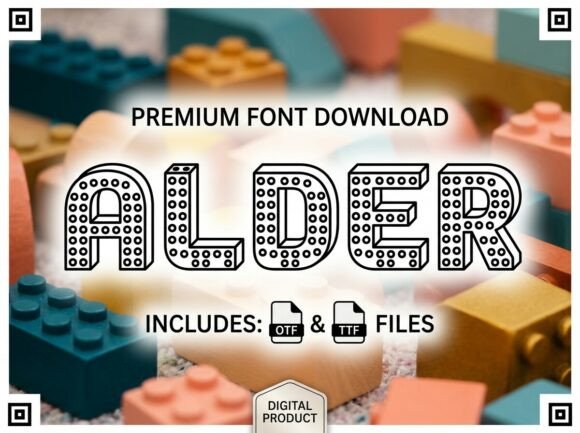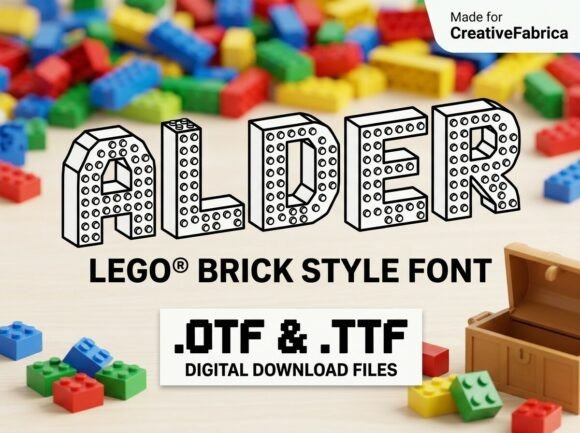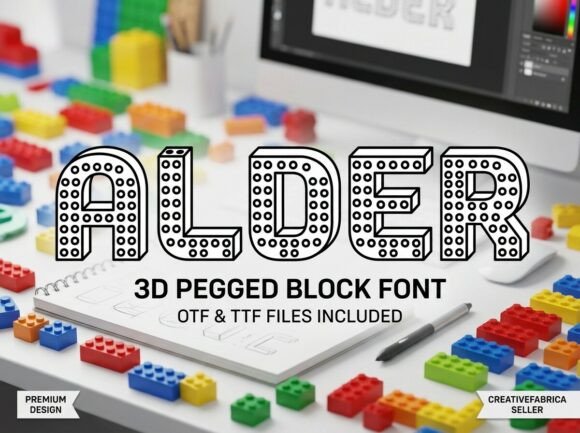
Introducing Alder Font: The Ultimate Display Typeface for Glamorous Designs
Are you looking for a font that can add a touch of glamour and grandeur to your designs? Look no further than Alder, a show-stopping display typeface that is sure to light up your creative projects. With its massive, 3D block letterforms and unique rhythmic, hand-drawn “marquee light” texture, Alder is the perfect choice for designers who want to make a statement.
The Inspiration Behind Alder
Alder’s design is inspired by the classic vintage Broadway theater signs and modern luxury event branding. The font’s creator aimed to capture the essence of these iconic designs and bring them into the modern era. The result is a font that exudes a sense of luxury, sophistication, and glamour.
Unique Features of Alder Font
So, what sets Alder apart from other display typefaces? Here are some of its unique features:
- Massive 3D block letterforms: Alder’s letterforms are large and bold, making them perfect for headlines, titles, and other display text.
- Rhythmic, hand-drawn “marquee light” texture: The font features a unique texture that is composed of internal bulbs, giving it a distinctive look that is reminiscent of vintage marquee signs.
- Heavy structural weight: Alder’s bold design makes it perfect for high-impact designs that need to grab attention.
- Cinematic personality: The font’s design is inspired by the world of cinema, making it perfect for film and entertainment branding.
Use Cases for Alder Font
So, what can you use Alder for? Here are some ideas to get you started:
- Independent entertainment branding: Alder is perfect for independent filmmakers, producers, and distributors who want to create a bold and eye-catching brand identity.
- High-end gala invitations: The font’s luxurious design makes it perfect for high-end events, such as charity galas, award shows, and luxury product launches.
- Boutique cinema identities: Alder is a great choice for boutique cinemas, film festivals, and other cinematic events that want to create a unique and memorable brand identity.
- High-impact social media headers: The font’s bold design makes it perfect for social media headers that need to grab attention and make a statement.
Why Choose Alder Font?
So, why should you choose Alder for your design projects? Here are just a few reasons:
- Unique and distinctive design: Alder’s design is unlike any other font on the market, making it perfect for designers who want to stand out from the crowd.
- High-quality and versatile: The font is designed to be versatile and can be used for a wide range of design projects, from film and entertainment branding to luxury event invitations.
- Easy to read and understand: Despite its bold design, Alder is easy to read and understand, making it perfect for use in a variety of contexts.
In conclusion, Alder is a show-stopping display typeface that is sure to light up your designs. With its unique and distinctive design, heavy structural weight, and cinematic personality, Alder is the perfect choice for designers who want to create glamorous and grand designs. Whether you’re working on an independent film project, a high-end gala invitation, or a boutique cinema identity, Alder is the perfect font for you.